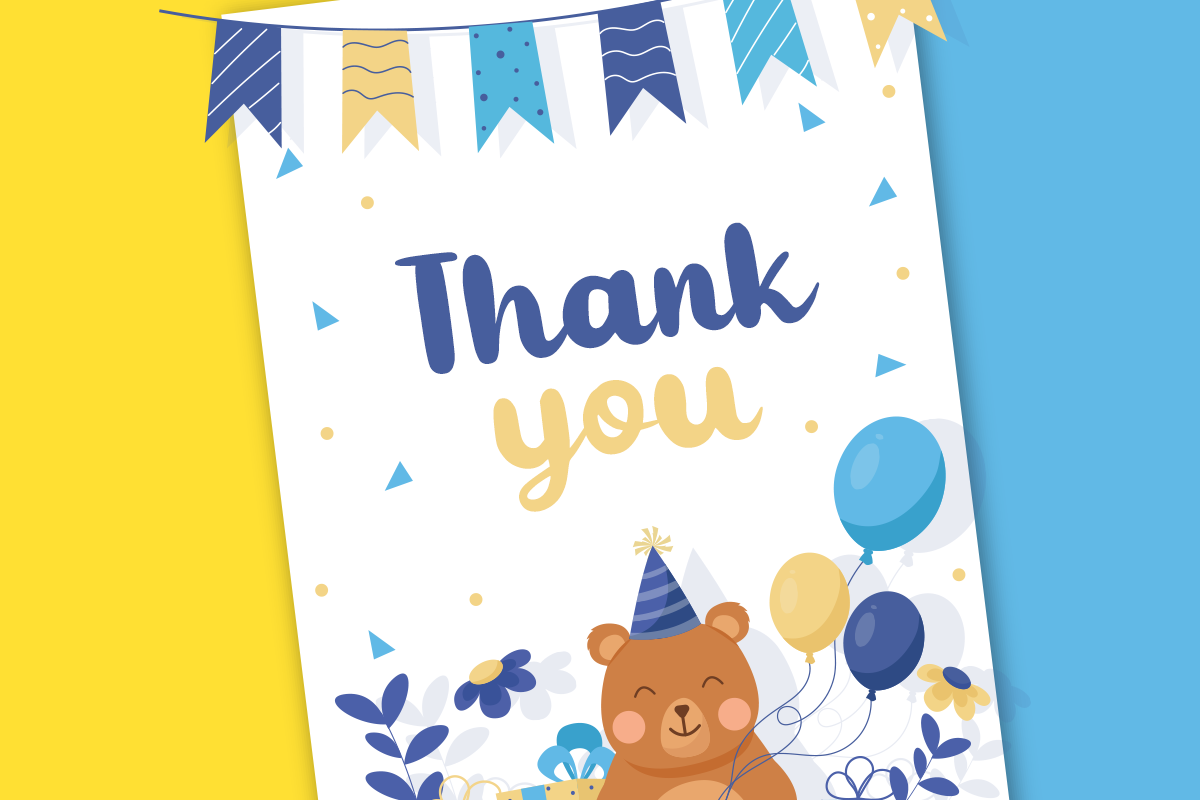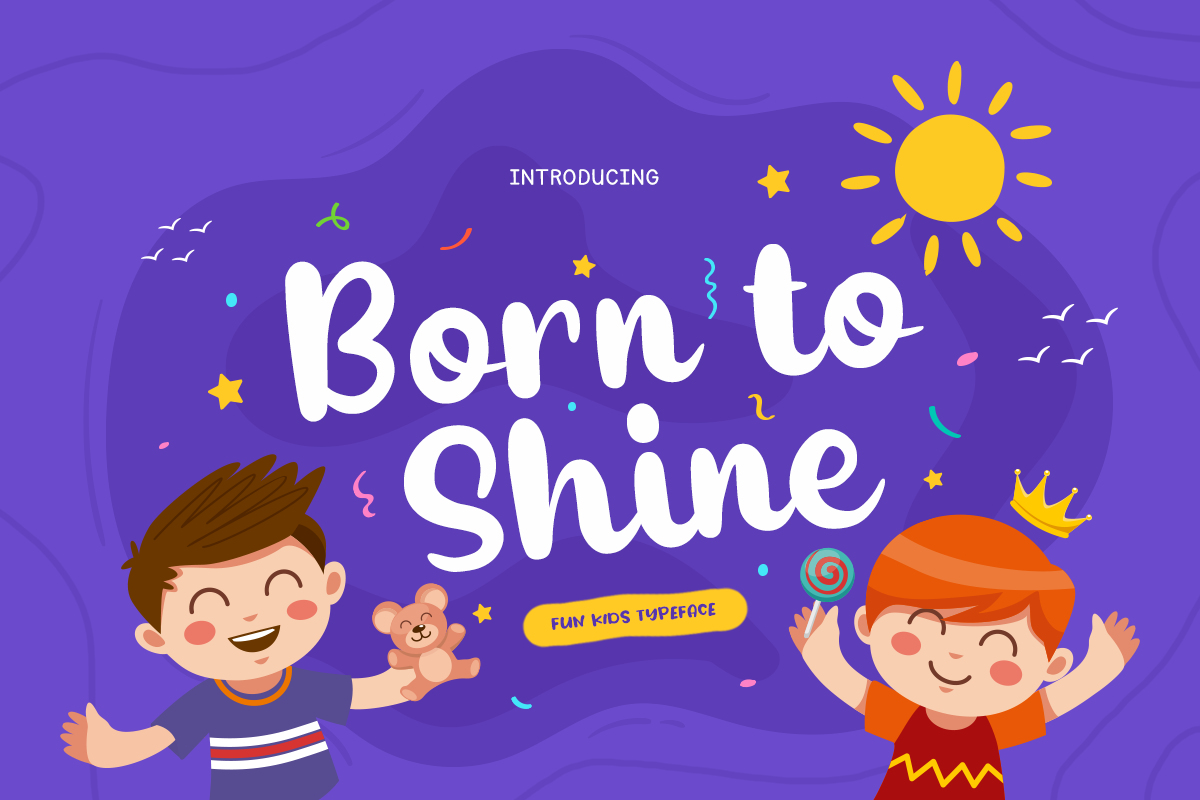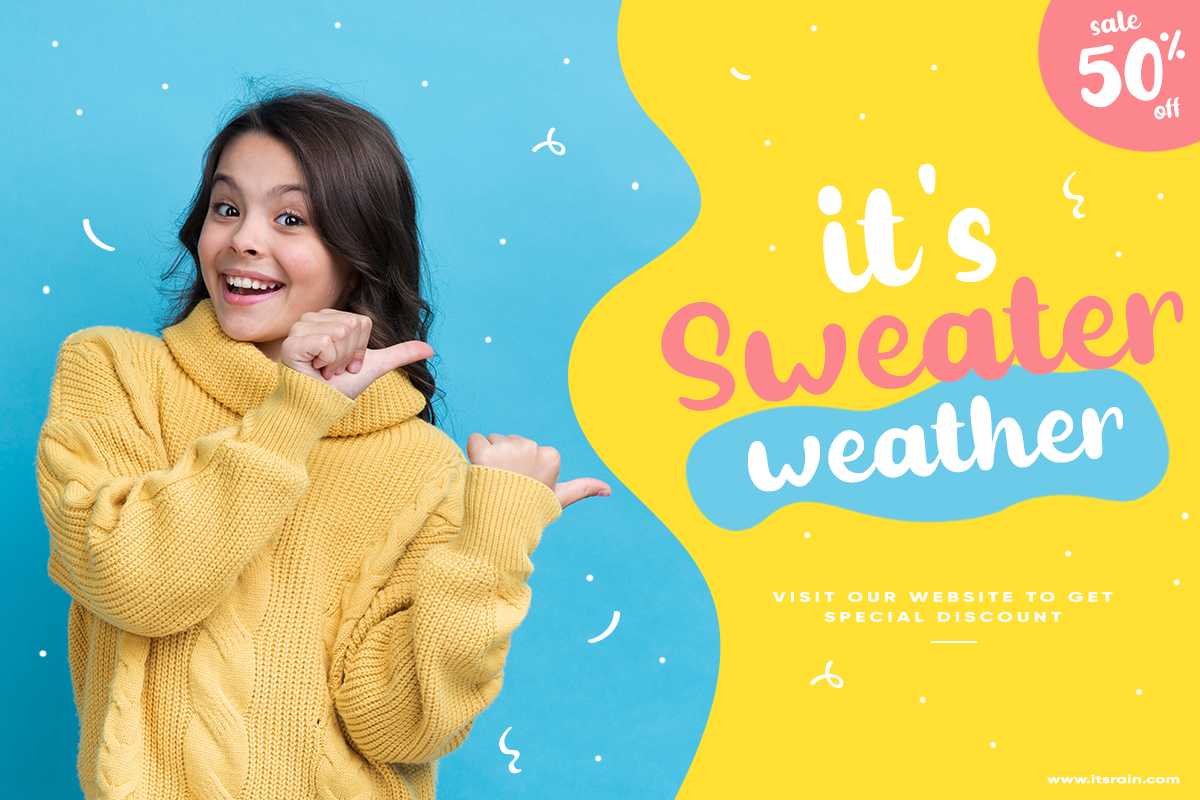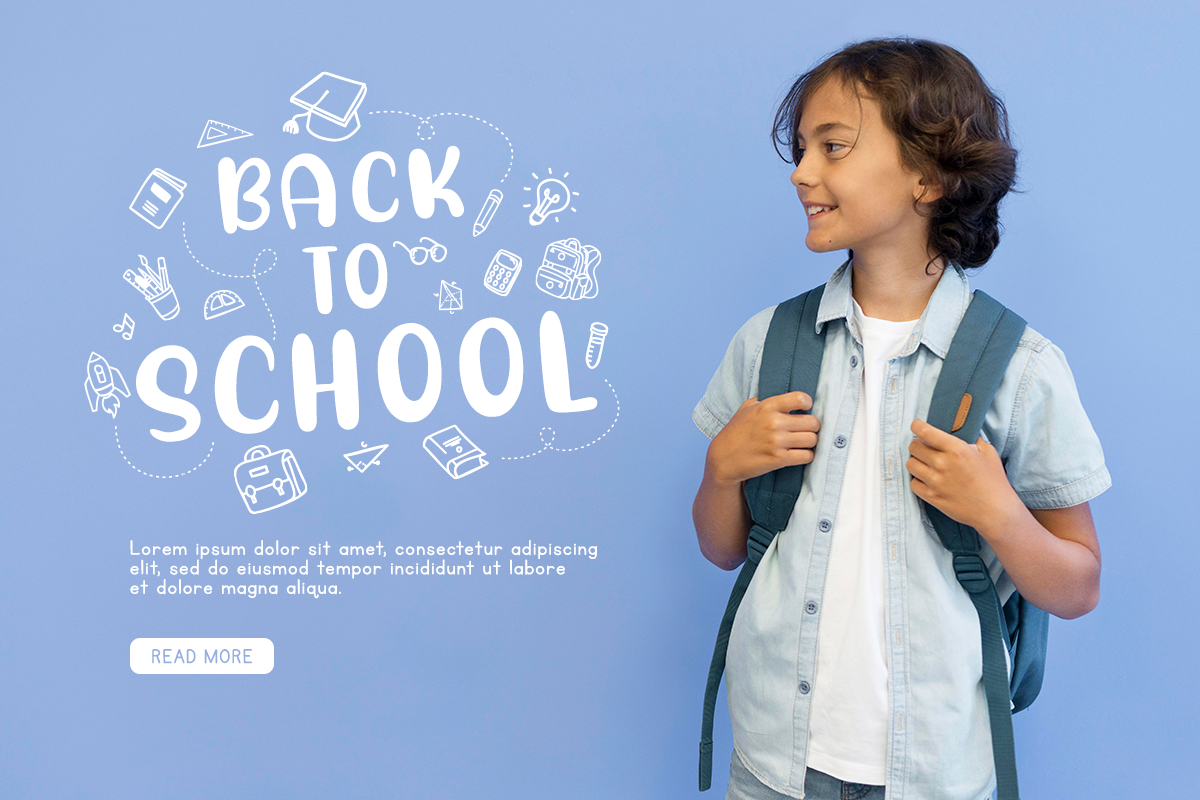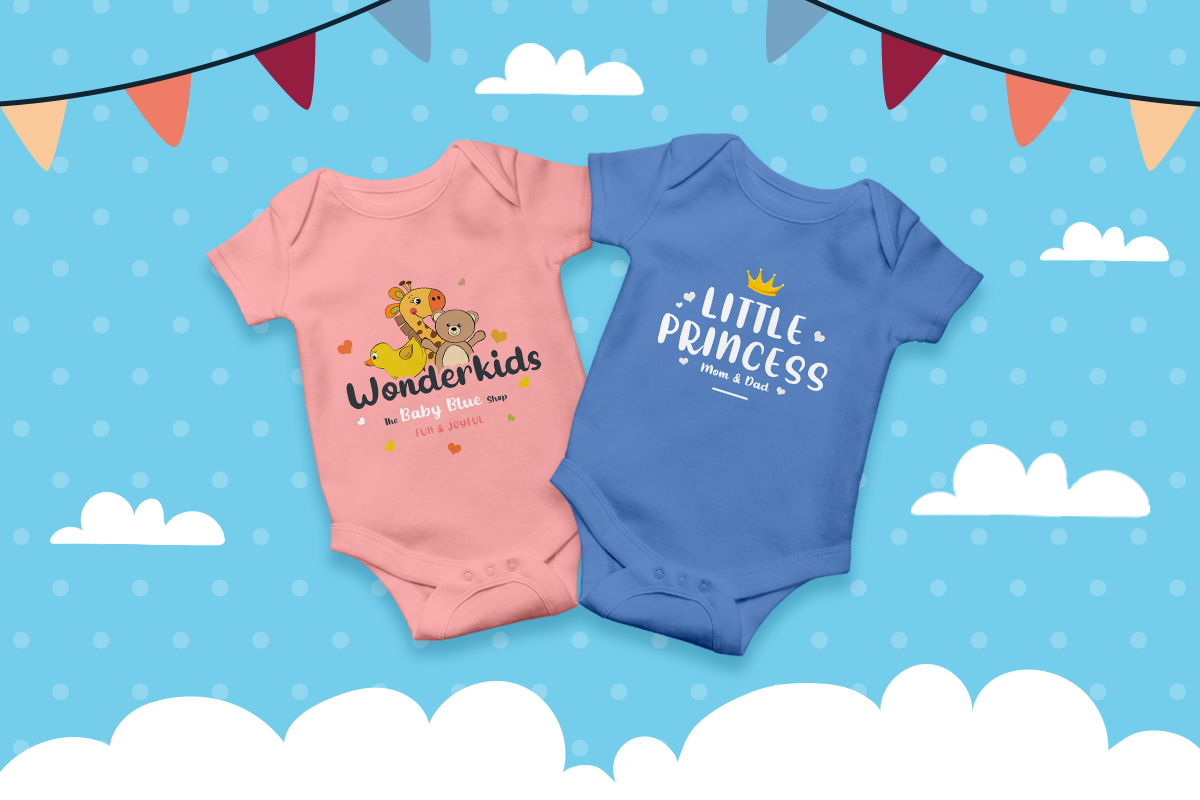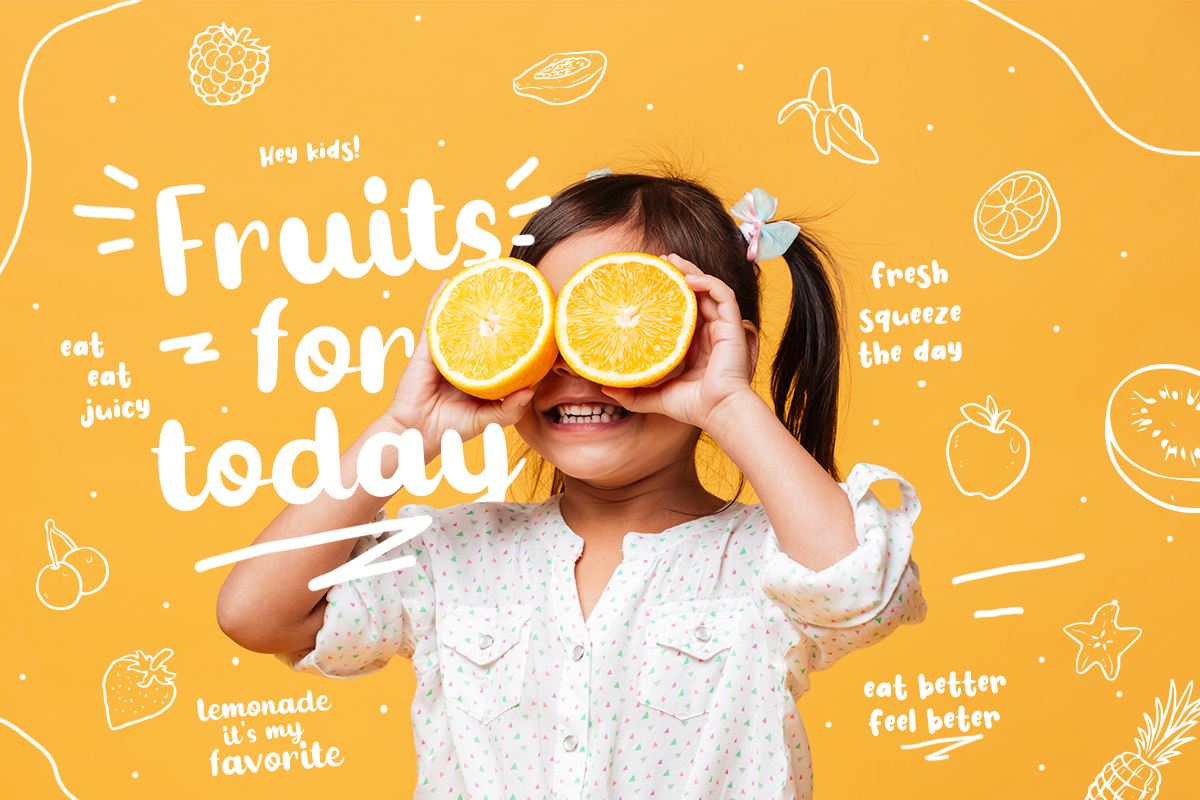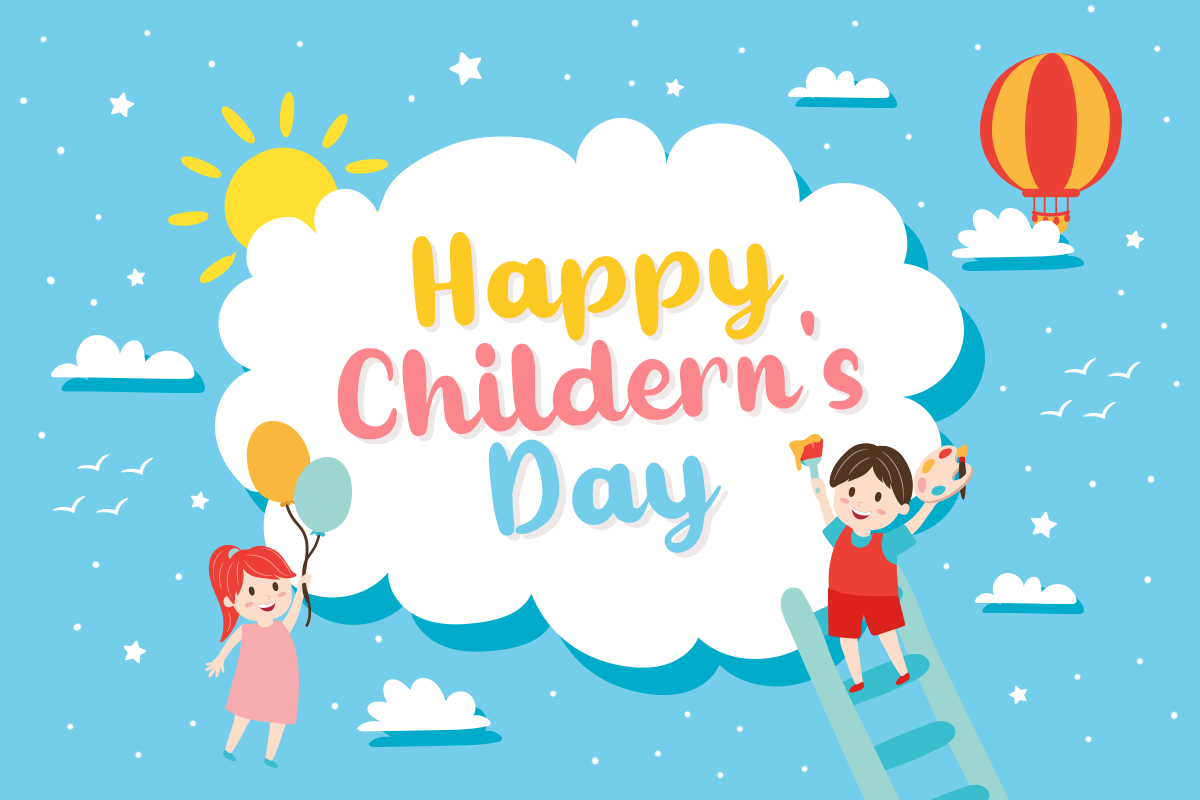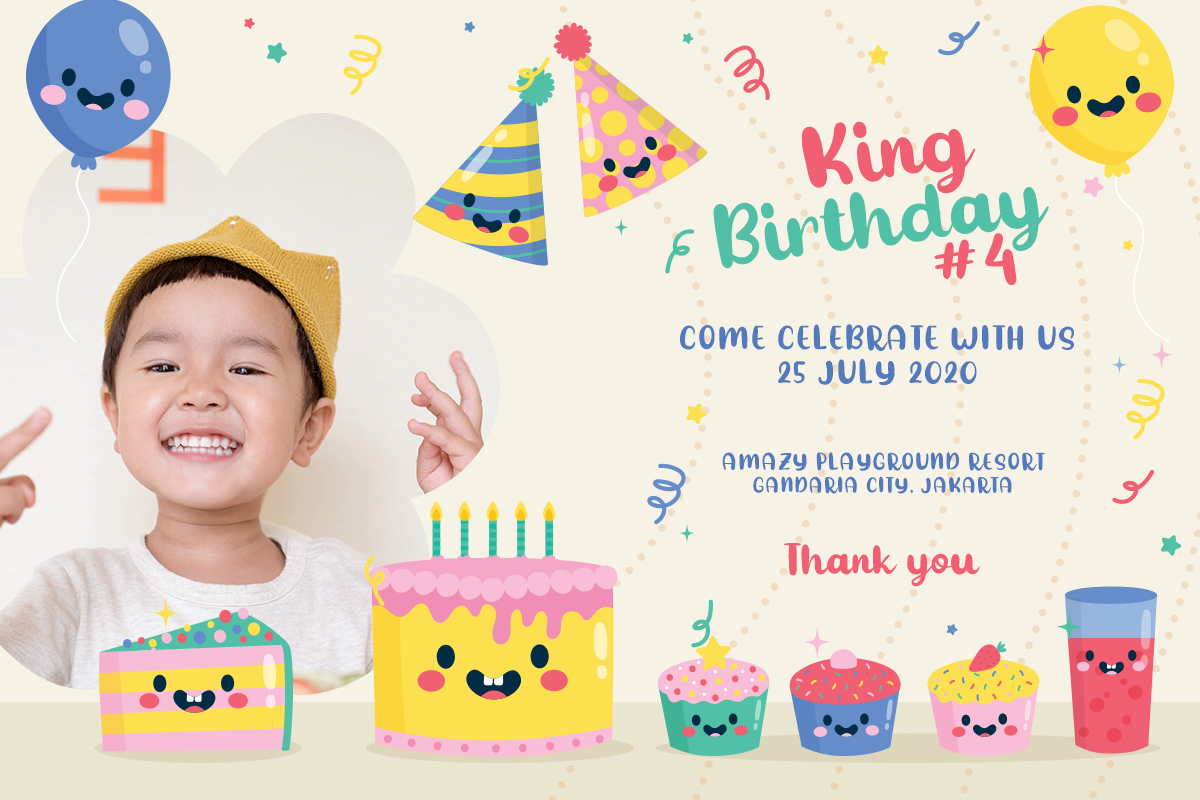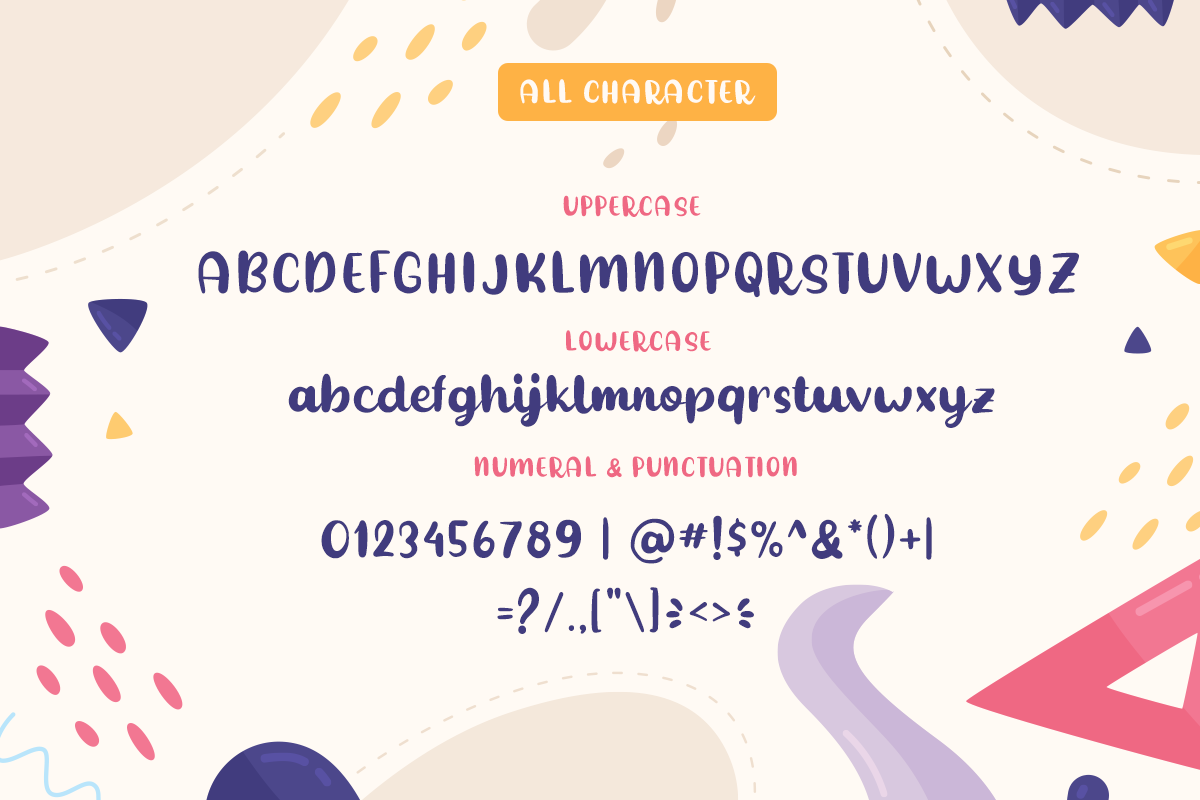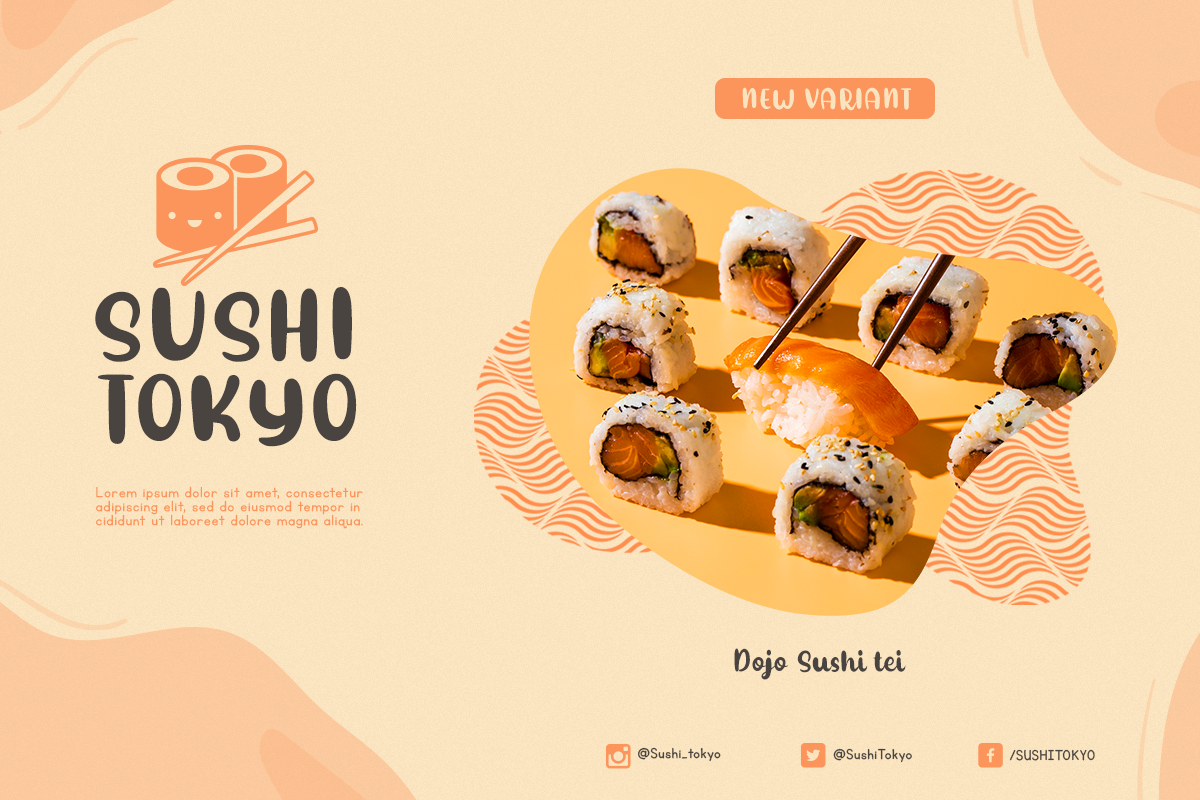
Born to Shine - Cute Baby Font
Born to Shine is a cute baby font that is suitable for your project. This typeface is perfect for child-related designs. Born to Shine is great for branding designs, children's product displays, logos, product packaging, or simply quoting and designing by overlaying stylish text onto any background image.
This font has a simple and unique design. Type {before the word to start swash and type} after the word to get the end of the swash.
Example: {Born to Shine}